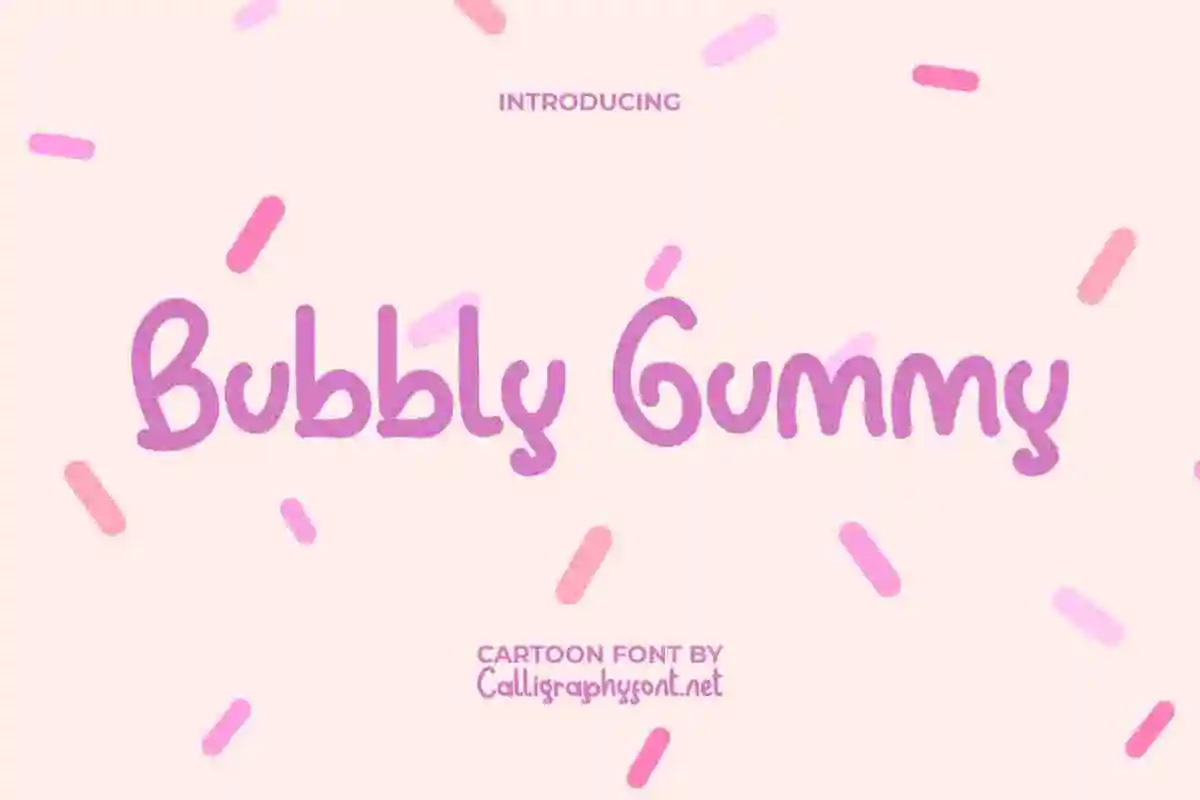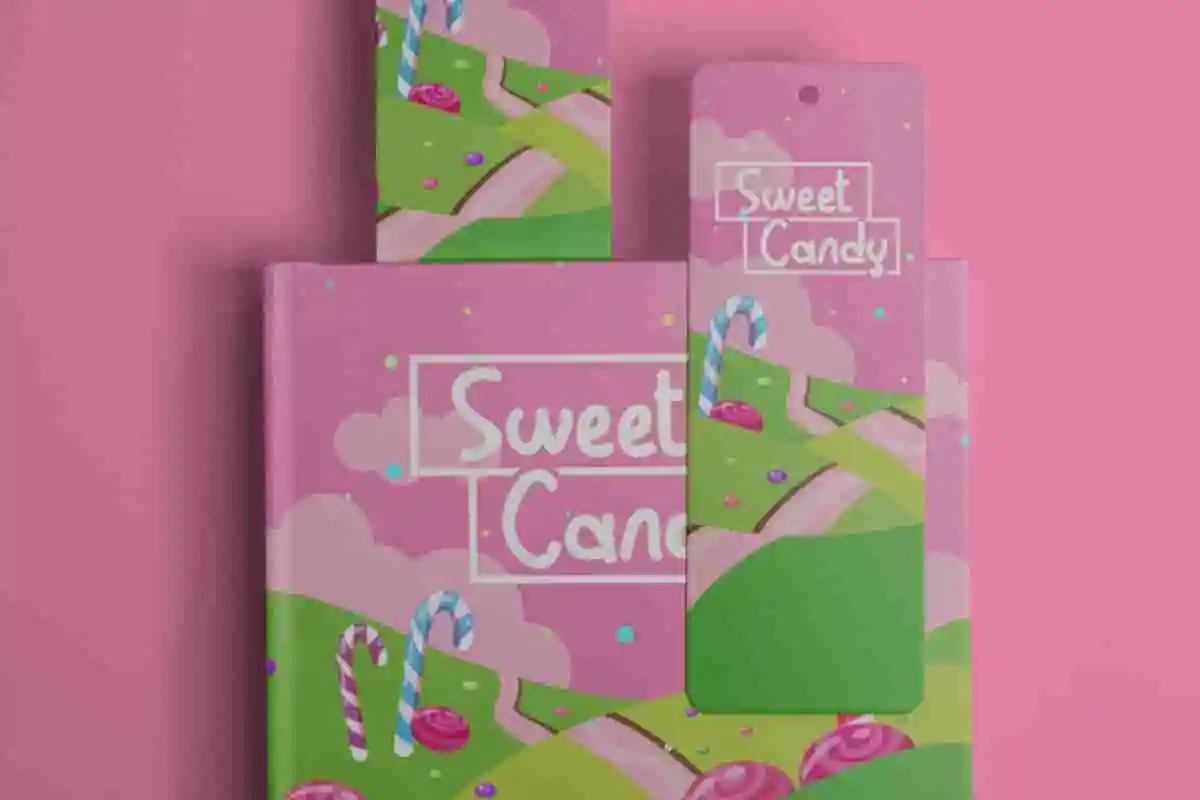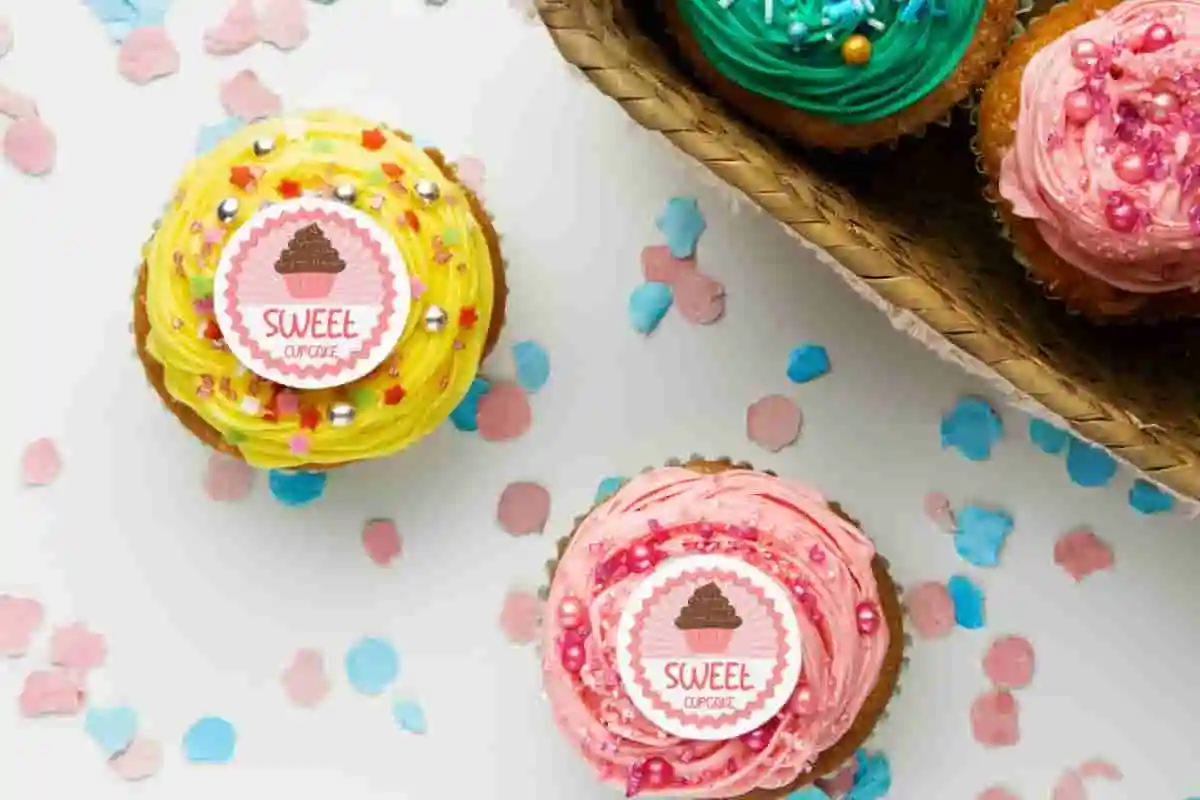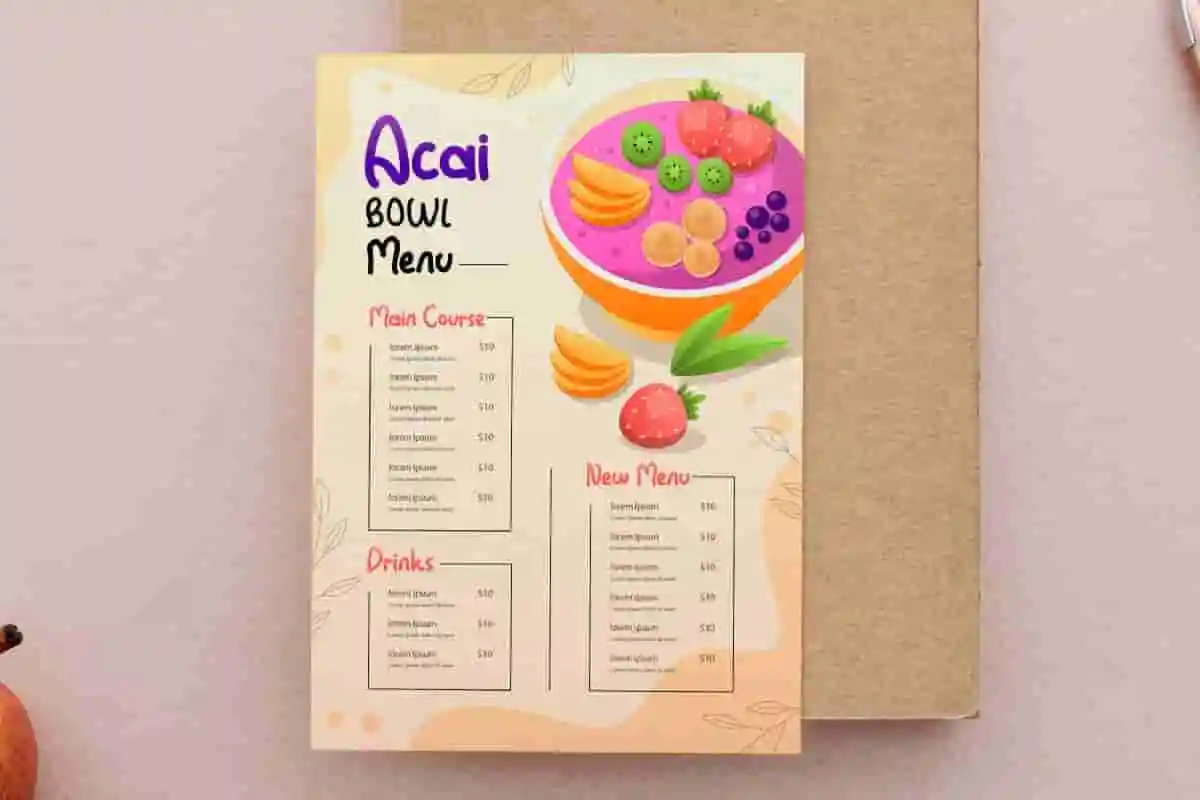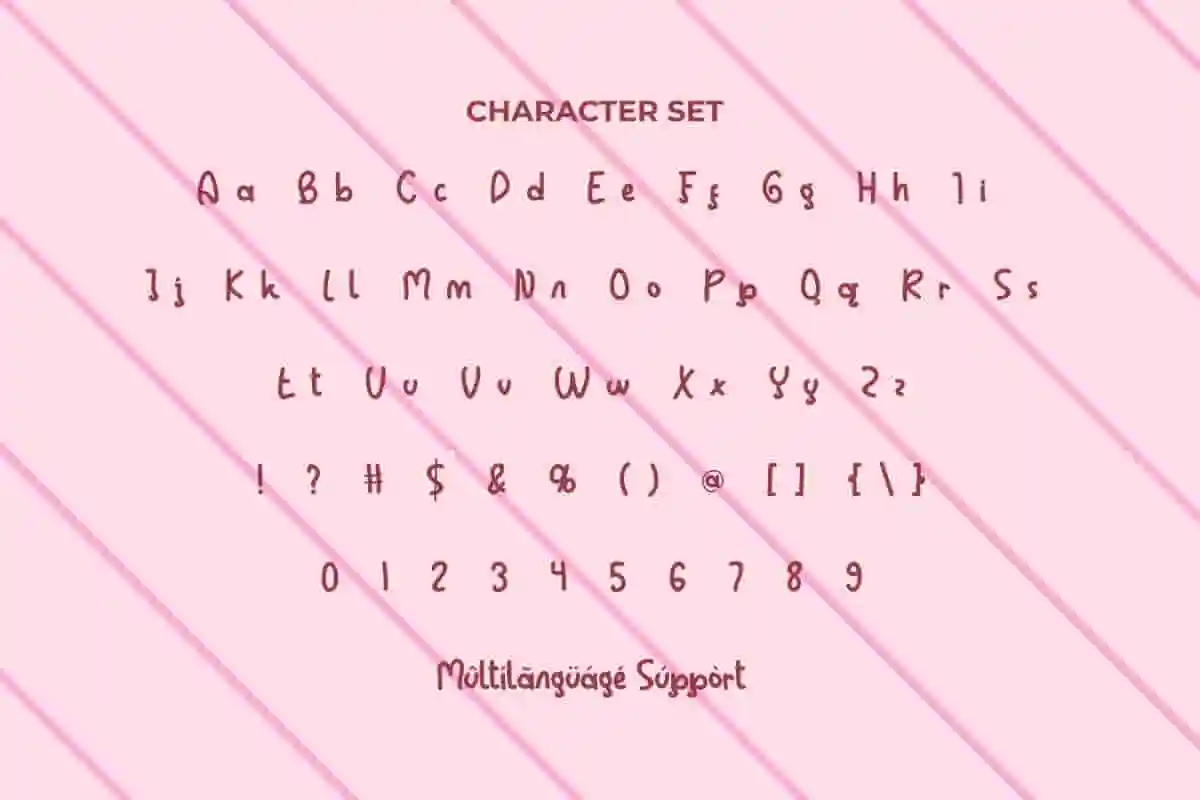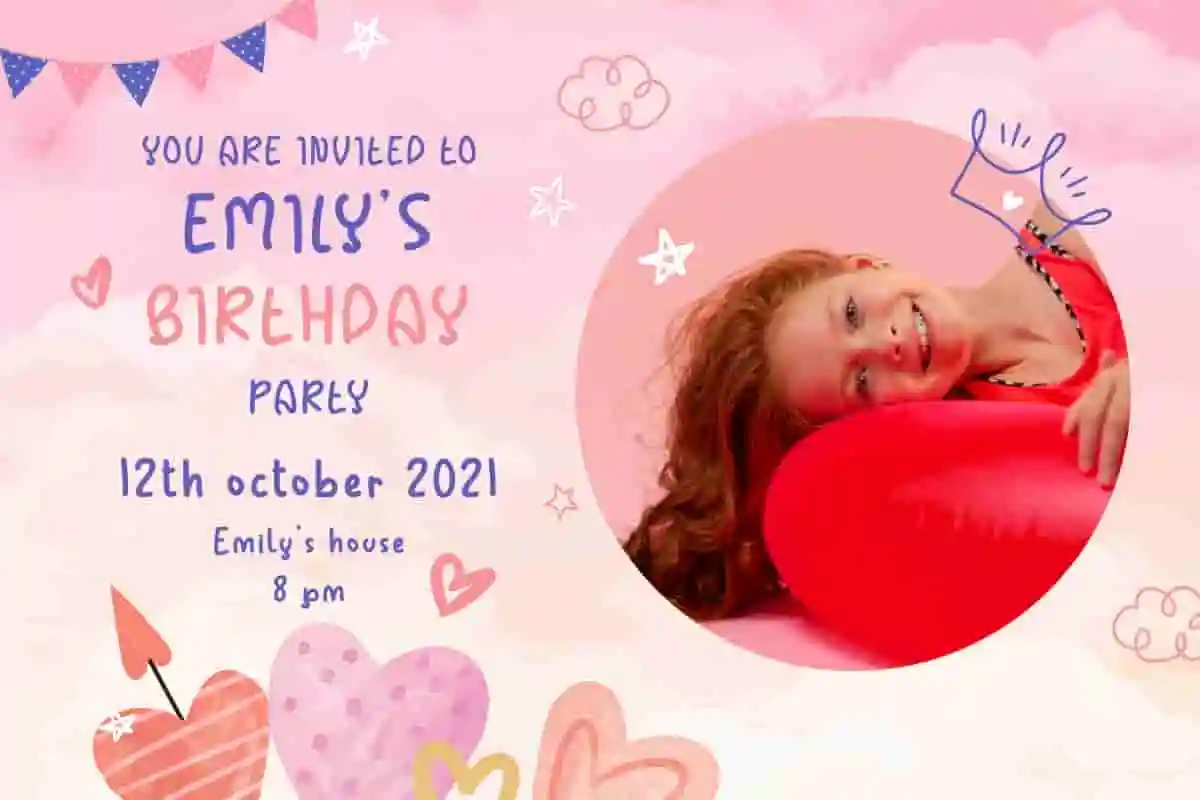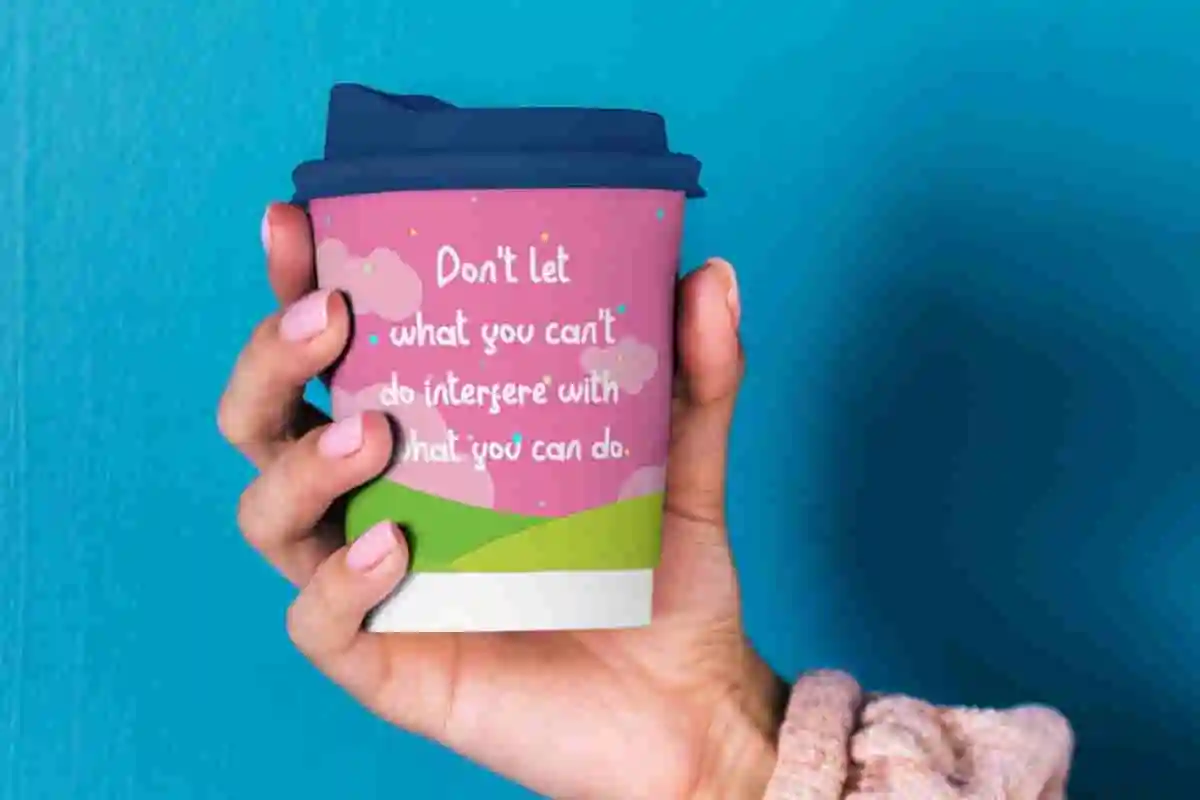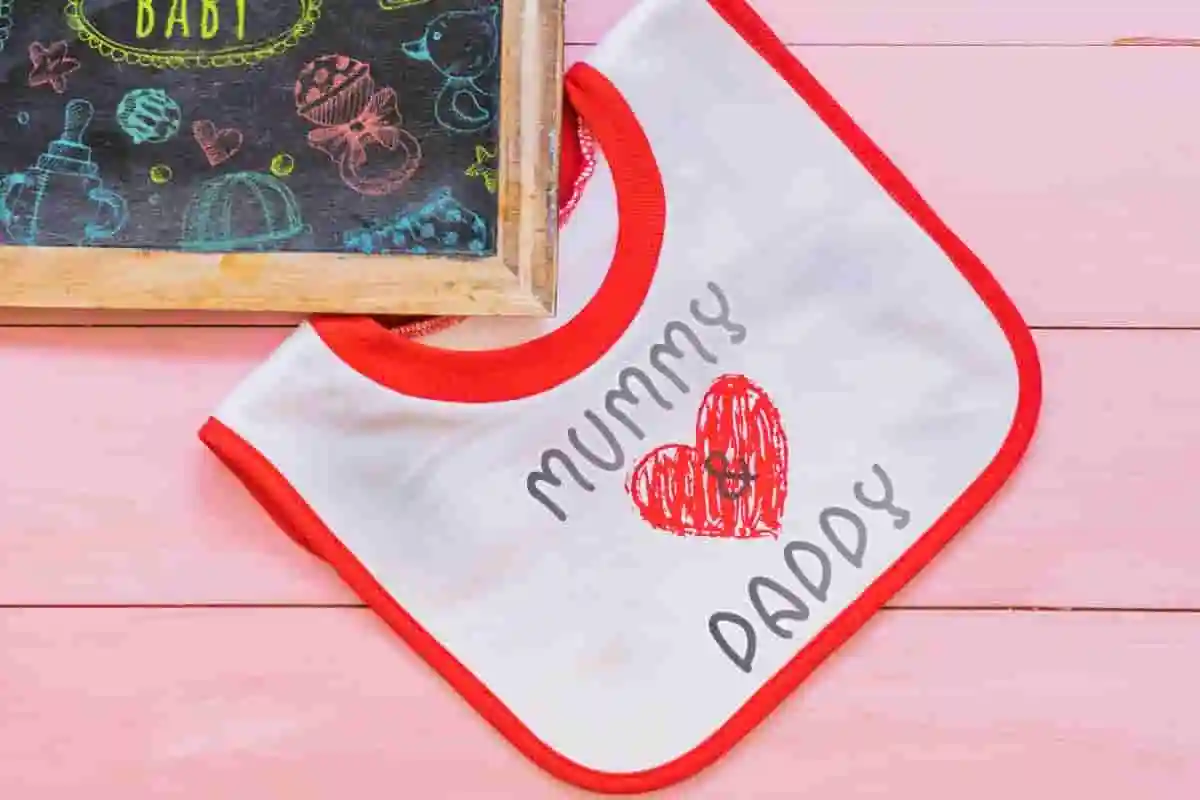
Bubbly Gummy Handwriting Font
Bubbly Gummy Font is a cute handwritten font with cartoon style and lovely modern handwriting look that will provide you a variety of adorable letters. Bring your dream to life with a cute handwriting look!
Bubbly Gummy Font is a cute handwritten font with cartoon style which is very sweet. It will be perfect to adorn any project, such as brand logo, brochure, cover, custom design, flyer, invitation, label, menu, poster, screen print, signage, social media post, stationery, sticker, thank you card, title, website, and other things that require an adorable touch.
Say hello to Bubbly Gummy Handwriting Font, a cheerful and bouncy handwritten typeface that brings fun and positivity to your designs. With its rounded curves and friendly charm, this font is perfect for children’s books, birthday invitations, playful branding, cute packaging, and more! Designed to feel like joyful handwriting with a soft, gummy twist, Bubbly Gummy adds a lighthearted, human touch to every word.
Get ready to fall in love with Bubbly Gummy Handwriting Font – a sweet and playful handwritten typeface that brings joy to every letter. Inspired by candy shapes and bubbly handwriting, this font is perfect for children’s books, birthday cards, toy packaging, social media content, and any project that needs a dose of cuteness. With its rounded edges, soft strokes, and lively character, Bubbly Gummy captures a warm and friendly feel that’s irresistible.
Bring a cheerful spirit to your designs with Bubbly Gummy Handwriting Font, a delightful and playful handwritten font that radiates fun, friendliness, and charm. With its soft curves and bubble-inspired form, this font is perfect for projects that need a joyful, kid-friendly, or light-hearted touch. Whether you’re designing for a children’s brand, creating colorful product packaging, making greeting cards, or building a playful social media post, Bubbly Gummy helps your words shine with personality.
- Fun & Friendly Handwriting Style
- Perfect for Whimsical Projects
The sweet look that Bubbly Gummy Font has will suit and be used by many industries, such as advertisement, bakery and pastry, café, content creator, fashion, food and beverages, graphic design, handicraft, homeware, interior design, kids stuff, printing, publishing, etc.
Bubbly Gummy Font comes with a full set of Uppercase and Lowercase Basic Characters, Number, a large range of Punctuation, and Symbol. It also comes with multilingual character support. Ready to use both on Windows machine or Mac with simple installations. It’s tested to work well in the Adobe Apps (Illustrator, Adobe InDesign, Adobe Photoshop) CorelDraw, and others. PUA Encode Characters means you can access all the characters easily – Fully accessible without additional design software.